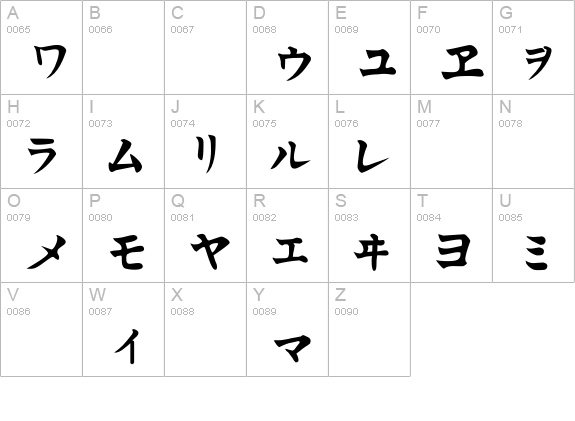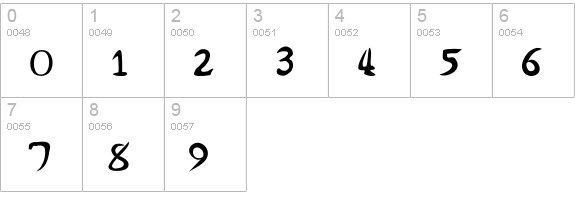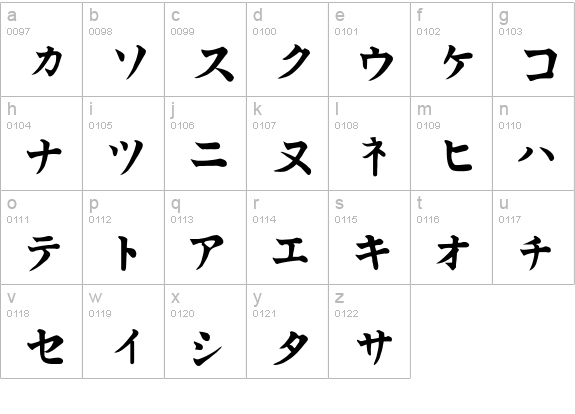
KataKana Font Details
The KataKana font is a captivating and visually striking typeface that is perfect for adding a touch of modernity and elegance to any design project. With its sleek and streamlined appearance, this font effortlessly captures attention and creates a lasting impression. Featuring bold and angular strokes, the KataKana font exudes a sense of sophistication and contemporary style. Its unique design combines traditional Japanese characters with a modern twist, resulting in a visually captivating and versatile typeface. Whether you're designing a logo, creating eye-catching headlines, or crafting stunning promotional materials, the KataKana font is sure to make a powerful statement. Its clean lines and impeccable letterforms ensure optimal legibility, making it a versatile choice for both print and digital media. One of the most remarkable aspects of the KataKana font is that it is freely available to download at FontsMarket.com. This means that you can easily access and use this exceptional font in your projects without any restrictions. Whether you're a professional designer or simply looking to add a touch of uniqueness to your personal creations, the KataKana font offers endless possibilities. So why wait? Download the KataKana font today from FontsMarket.com and unleash your creativity with this stunning typeface. Whether you're designing a website, creating stylish branding materials, or simply experimenting with typography, the KataKana font is the perfect choice to elevate your designs and make a lasting impression.